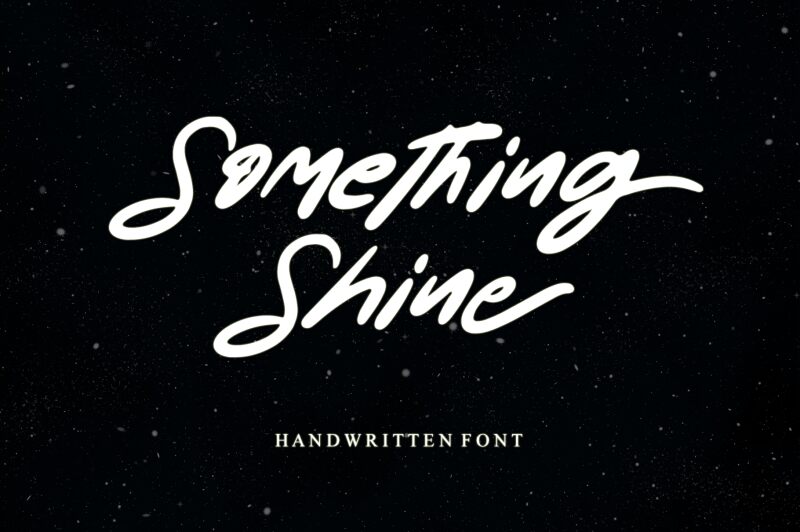
Something Shine - Personal Use
Something Shine, a casual handwritten font by Letterafa Studio, adds a touch of playfulness and authenticity to your projects. Its whimsical curves and uneven lines evoke a sense of creativity and uniqueness.
Perfect for children's books, party invitations, and craft blogs, this font brings joy to any design. Whether you're creating greeting cards or DIY tutorials, Something Shine will make your text stand out with its charming personality.
Let your imagination run wild with this delightful font that captures the essence of carefree handwriting.